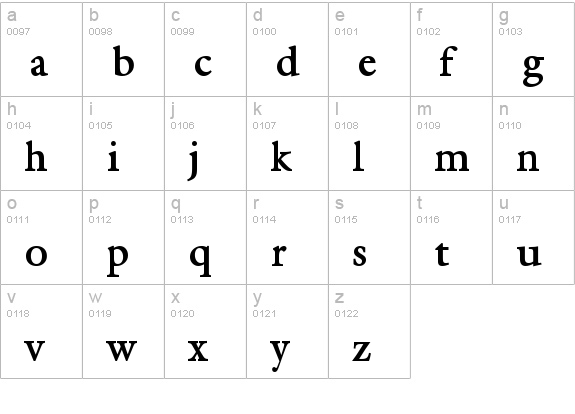
Galant Bold Font Details
Galant Bold is a strong, high-contrast variant in the Galant typeface family \xE2\x80\x94 well suited to headlines, attention-grabbing titles, and strong calls-to-action.
Galant Bold is a striking and commanding font that exudes confidence and elegance. With its strong and bold letterforms, this font is perfect for creating impactful headlines, titles, and branding materials. The sharp edges and clean lines of Galant Bold make it stand out, ensuring that your message will be noticed and remembered. Designed with attention to detail, Galant Bold is a versatile font that can be used in a variety of design projects. Whether you're designing a logo, a poster, a website, or any other creative endeavor, this font will add a touch of sophistication and professionalism to your work. What sets Galant Bold apart is not only its stunning design but also its accessibility. This font is freely available to download at FontsMarket.com, making it easily accessible to designers, artists, and anyone who wants to add a touch of boldness to their projects. The freedom to use Galant Bold without any restrictions allows you to unleash your creativity and explore its potential to the fullest. So, if you're looking for a font that combines strength, elegance, and freedom, look no further than Galant Bold. Download it today from FontsMarket.com and elevate your designs to new heights. Whether you're aiming to make a statement or simply captivate your audience, Galant Bold will help you achieve your desired effect effortlessly.